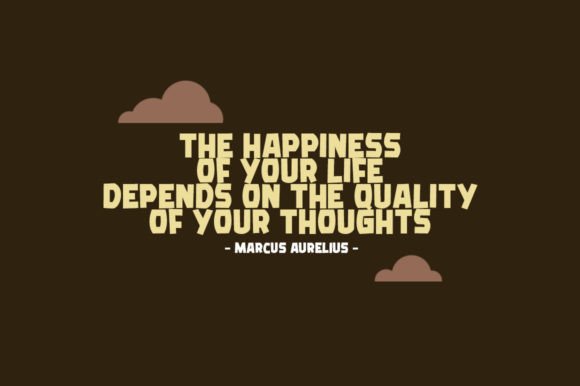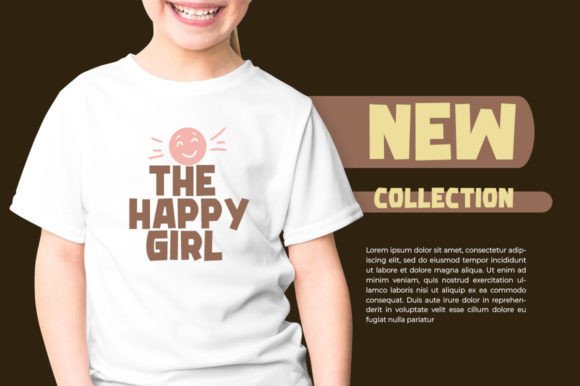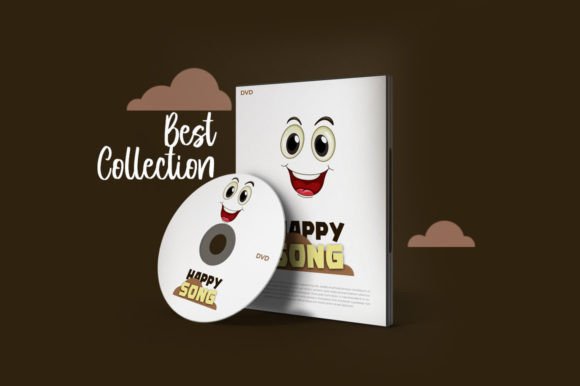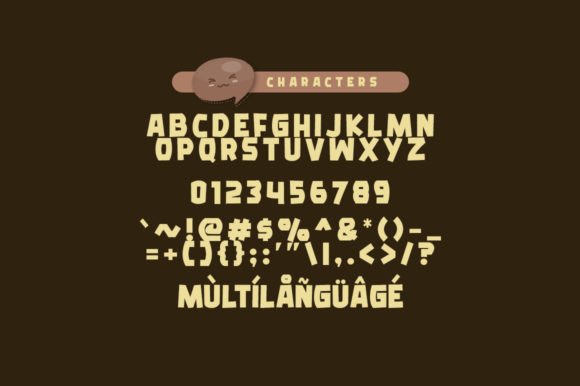
Discover the Power of a Perfect Smile: Golden Smile Font
Have you ever sat in front of your computer, staring at a blank screen, and suddenly, an idea strikes? Maybe it’s a character design for a children’s book, or a title for a new cartoon series. Whatever it is, the spark of creativity can be exhilarating. And for designers looking to bring a playful touch to their work, there’s one font that stands out from the crowd: Golden Smile Font.
This fun and cool display font is perfect for designers who want to add a smile to their creations. Whether you’re working on a children’s game, a cartoon-related design, or just a project that needs a lighthearted feel, Golden Smile Font is the perfect choice. Its value lies in its ability to bring a sense of joy and playfulness to any design, making it a valuable addition to any designer’s toolkit.
Key Features of Golden Smile Font
- Font Family: Golden Smile Font is a unique, handwritten font family designed to evoke a sense of warmth and friendliness.
- Character Count: The font family includes over 200 characters, including uppercase and lowercase letters, numbers, and punctuation marks.
- Unique Characteristics: Golden Smile Font features a distinctive, hand-drawn feel with subtle imperfections and variations in line width, giving it a personal and charming touch.
Golden Smile Font Review
Overall, I was quite excited to dive into the Golden Smile Font, but my experience was a mixed bag. Here’s what I found.
- The font’s unique, playful personality shines through in its custom lettering and quirky details.
- It’s perfect for creating eye-catching headlines and titles that grab attention.
- The font’s high level of customizability makes it suitable for various design projects.
- The font may not be the best choice for body text, as it can be difficult to read in large quantities.
- The level of legibility decreases when scaled down or used in smaller sizes.
- The font’s uniqueness may not be suitable for all design projects or brands, which could limit its versatility.
In conclusion, while the Golden Smile Font has its charm, its limitations prevent it from being a go-to choice for all design projects. It’s perfect for specific use cases where its unique personality can shine, but may not be the best fit for more straightforward design tasks.
Tips for Getting the Most Out of the Golden Smile Font
Here are some tips for using the Golden Smile Font effectively:
- Use it for headings and titles to add a touch of elegance.
- Combine it with other fonts for a unique and playful look.
The Golden Smile Font is ideal for:
- Party and event promotions.
Alternatives to Golden Smile Font
Golden Smile Font is a popular script font used in various design projects. However, there are several other alternatives that offer unique characteristics and can be used in different contexts.
Playfair Display is a luxurious script font that features elegant and refined lines. It’s perfect for use in high-end branding, invitations, and other materials where sophistication is key. Compared to Golden Smile Font, Playfair Display has a more traditional and classic feel, with a stronger emphasis on elegance and refinement.
Carolyna Pro is a modern script font that offers a more relaxed and casual feel. It’s suitable for use in a wide range of projects, from branding and advertising to editorial and web design. Compared to Golden Smile Font, Carolyna Pro has a more open and airy feel, with a stronger emphasis on legibility and readability.
Great Vibes is a modern script font that features a mix of elegance and playfulness. It’s perfect for use in projects where a sense of fun and energy is required, such as in advertising and social media design. Compared to Golden Smile Font, Great Vibes has a more modern and edgy feel, with a stronger emphasis on creativity and experimentation.